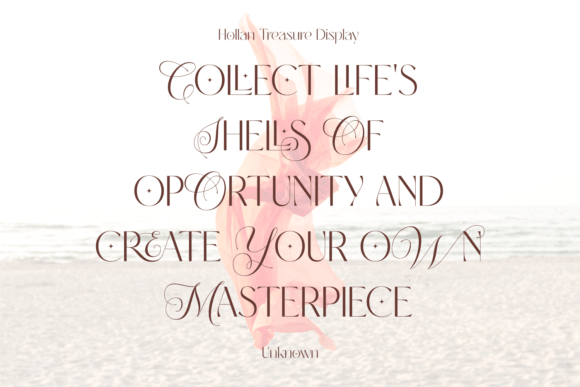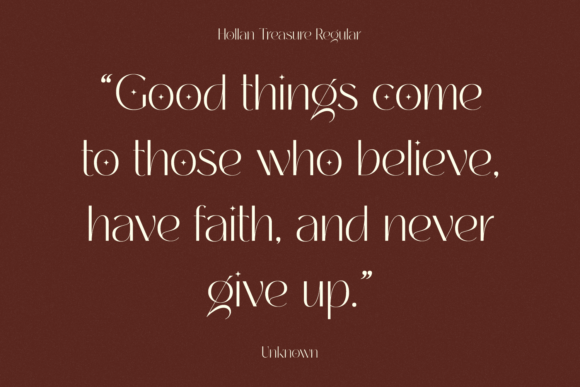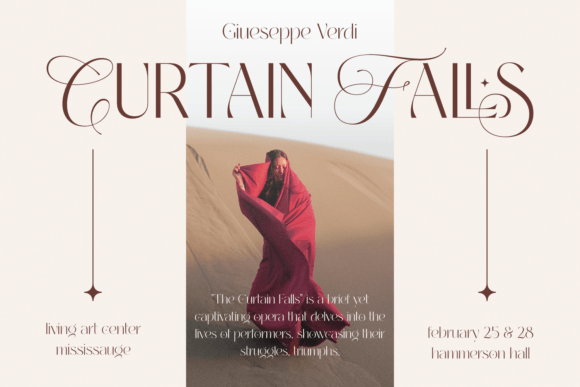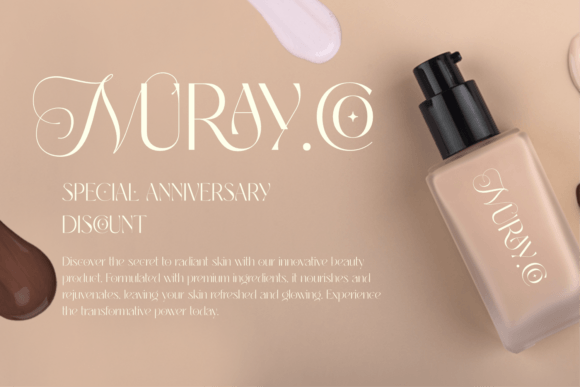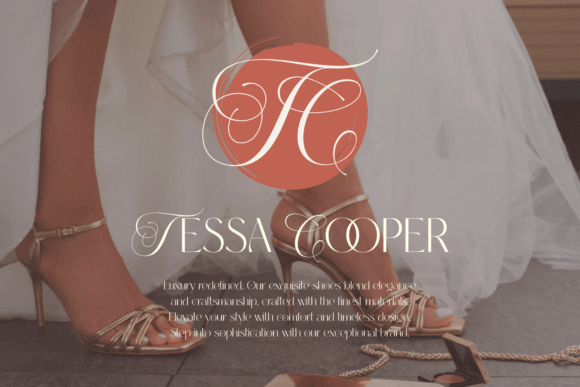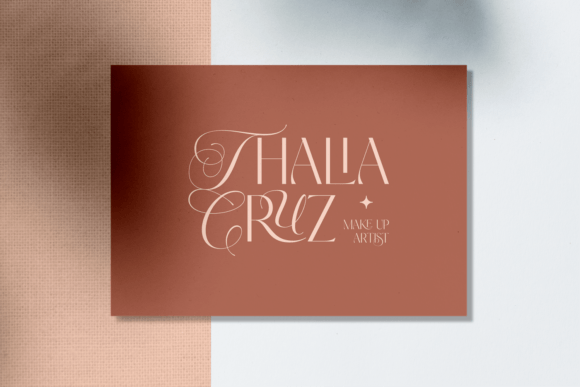
Introduction to Holland Treasure Font
Have you ever been working on a creative project and suddenly you’re stuck, searching for the perfect font to elevate your design? It’s a feeling we’ve all experienced at some point, but what if you could find that perfect font to make your project truly shine? For designers looking to add a touch of sophistication and elegance to their work, we’re excited to introduce the Holland Treasure Font.
This stunning hybrid font combines the best of both worlds, merging script and sans serif styles to create a truly unique design resource. With two variations, Holland Treasure Display and Holland Treasure Regular, you’ll have everything you need to take your designs to the next level. Whether you’re working on a logo, brochure, or website, this high-quality font is sure to impress.
Honest Review: Holland Treasure Font
I recently had the chance to work with the Holland Treasure Font in one of my creative projects, and I must say it’s been a game-changer. This font has all the right elements to make it a valuable design resource. ✨
- High Quality:** The font’s crisp lines and smooth curves make it perfect for any design project.
- Transparent Background:** The font’s transparent background gives it a clean and modern look that fits well with any design style.
What I particularly like about the Holland Treasure Font is its versatility. It can be used for a wide range of creative projects, from logos and branding to print materials and digital designs.
While the font is generally excellent, I did encounter a few limitations. ⚠️
- Limited Font Weights: The font only comes in a few weights, which might limit its use in certain design situations.
- No Italic Style:** I wish the font had an italic style to give it more versatility.
Overall, I’m impressed with the Holland Treasure Font. Its high quality, free download, and transparent background make it an excellent design resource. While it has some limitations, I believe it’s a great addition to any designer’s toolkit.
The Holland Treasure Font is a high-quality, free download design resource perfect for any creative project. Its unique design and transparent background make it an excellent addition to any design.
The Holland Treasure Font is perfect for use in a variety of creative projects, including logos, business cards, posters, and social media graphics. Its unique design and transparent background make it an excellent choice for any design that requires a touch of elegance and sophistication.